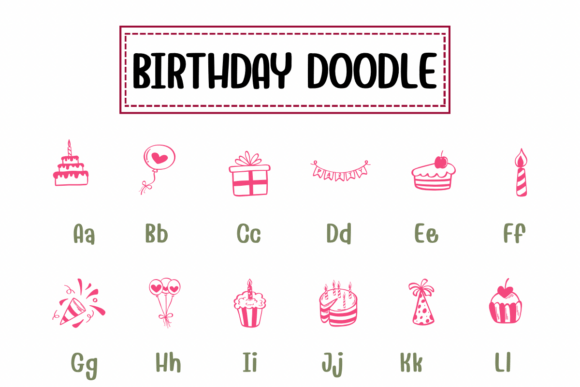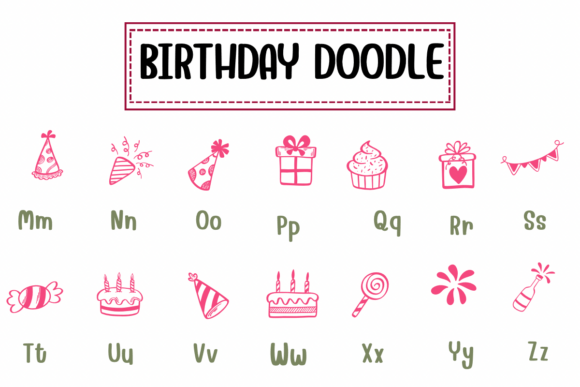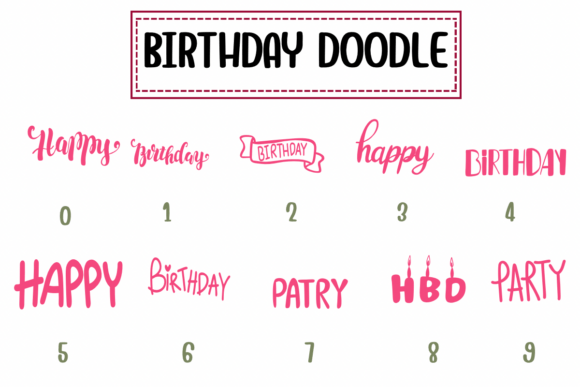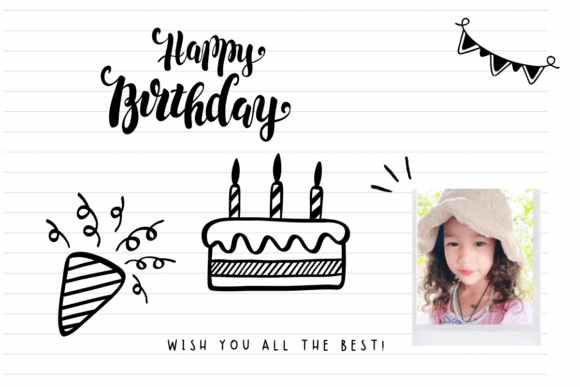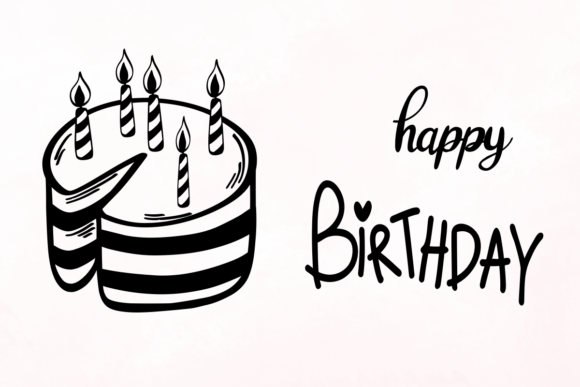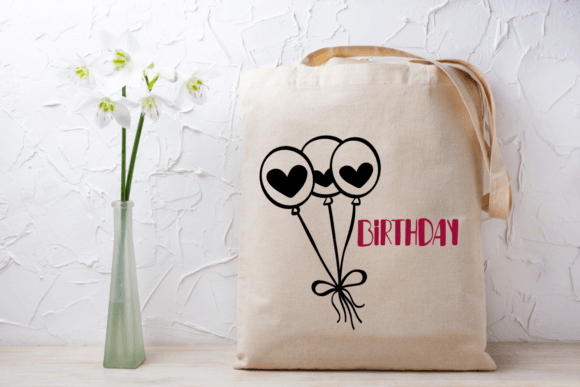
The Birthday Doodle Font: A Festive Twist for Your Creative Projects
I’ll never forget the time I was working on a wedding invitation project, and my client asked for a font that was “fun, playful, and celebratory.” I scoured the internet, tried out dozens of fonts, but nothing seemed quite right. That was until I stumbled upon the Birthday Doodle font. It was like a breath of fresh air – a dingbats font with a festive theme that perfectly captured the essence of the occasion. In this article, I’ll share my experience with the Birthday Doodle font, its features, and how to make the most of it in your creative projects.
• ✨ Unique and playful design that’s perfect for making a statement
• ✅ Extensive character set, including OpenType features and glyphs
• 🎉 Highly versatile and can be used for various creative projects, from wedding invitations to DIY crafts
While the Birthday Doodle font is an excellent addition to any design project, there are a few things to keep in mind:
• ⚠️ Some characters may require manual kerning for optimal results
• 🤔 Limited availability of stylistic alternates, which may limit design flexibility
The Birthday Doodle font was created by a talented designer who wanted to capture the essence of celebration and joy. Inspired by traditional dingbats and modern calligraphy, this font is perfect for designers who want to add a playful twist to their projects. According to the designer, “The Birthday Doodle font is all about embracing the imperfections and quirks of hand-drawn art. I wanted to create a font that would make people smile and inspire creativity.”
What type of projects is the Birthday Doodle font best suited for? The Birthday Doodle font is highly versatile and can be used for various creative projects, including wedding invitations, DIY crafts, decorations, logos, and more.